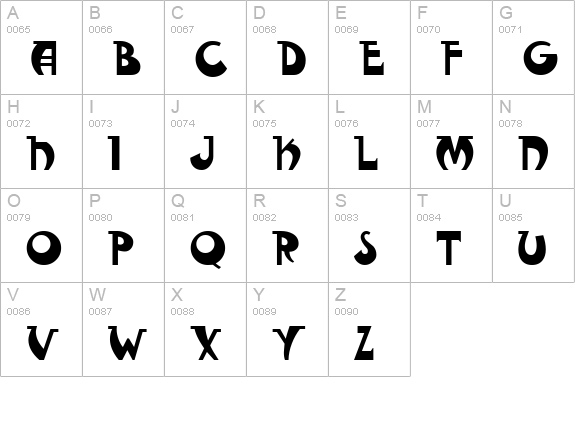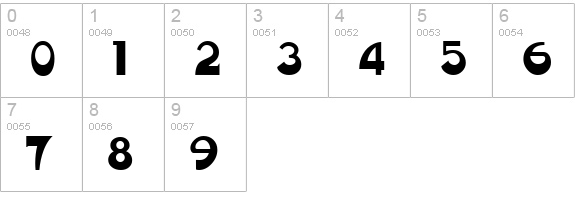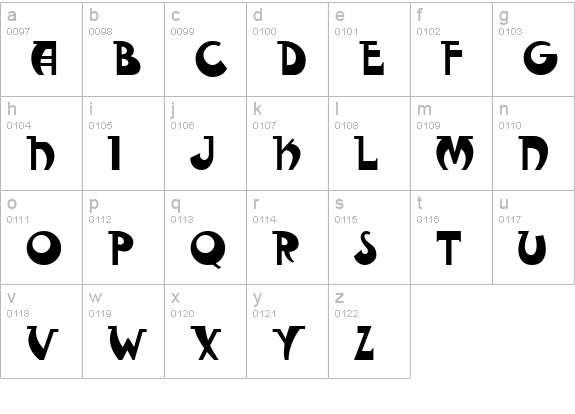
Introducing the stunning Fantastic MF Modern font, a contemporary typeface that effortlessly blends sophistication with a touch of whimsy. This font is perfect for adding a modern and stylish flair to your designs, whether for branding, advertising, or creative projects. With its sleek lines and elegant curves, Fantastic MF Modern exudes a sense of professionalism and creativity. Best of all, this font is available for free download at FontsMarket.com. Yes, you read that right - you can elevate your designs with this gorgeous typeface without spending a dime. Don't miss out on the opportunity to enhance your projects with the beauty and versatility of Fantastic MF Modern font. Download it today and let your creativity soar!